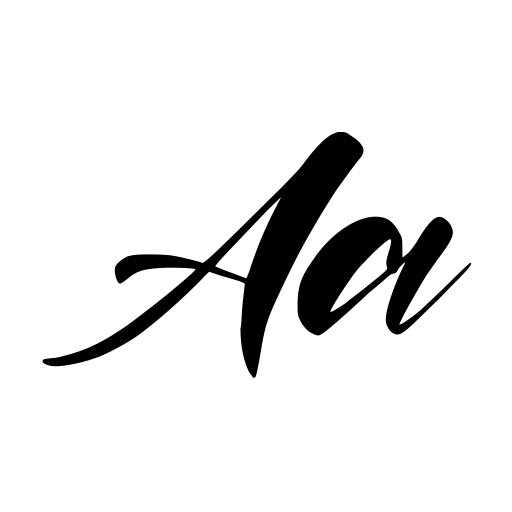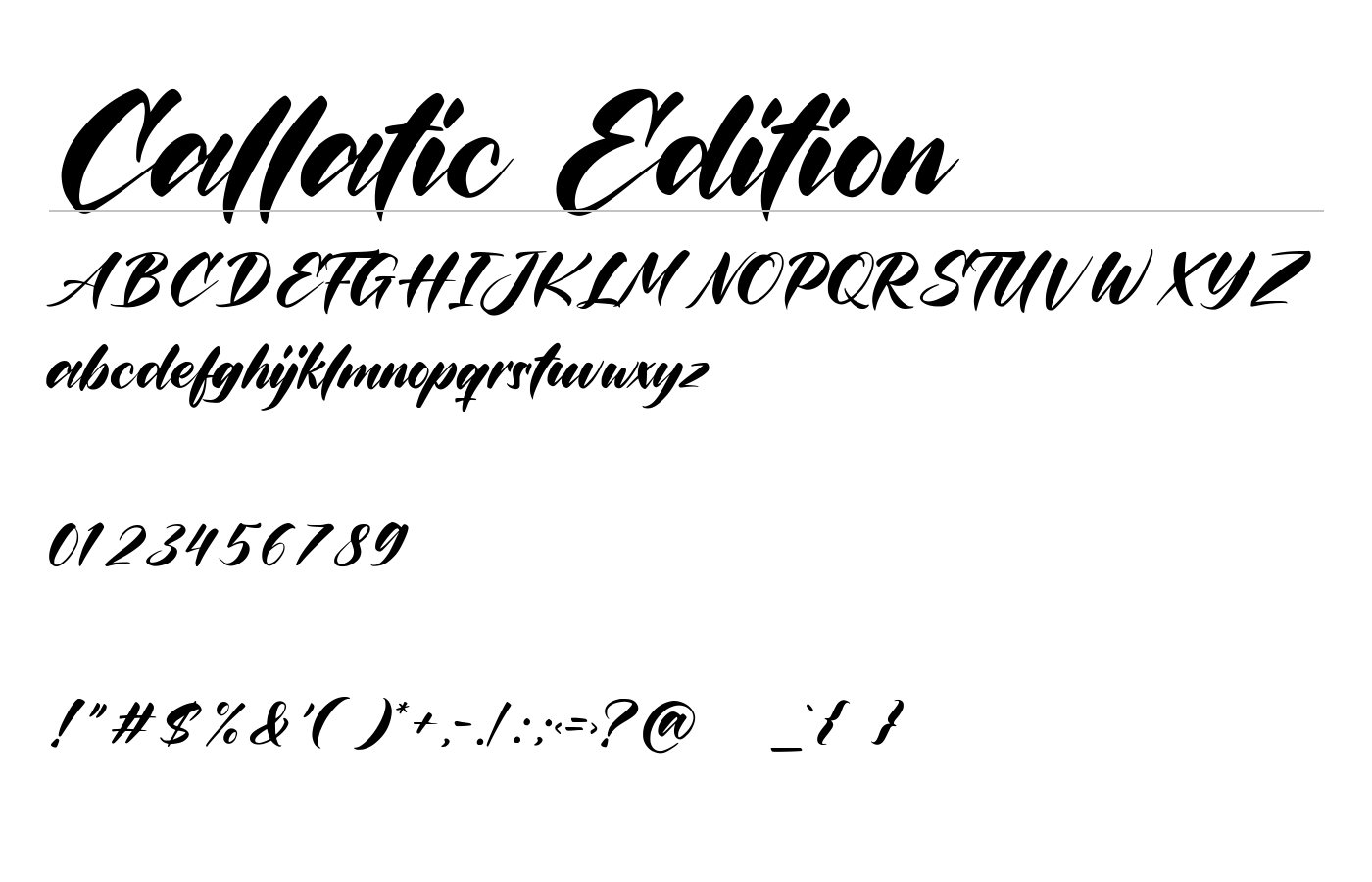
Callatic Edition is a bold, expressive script font with a lively, hand-painted feel. Its thick and dynamic strokes, combined with elegant swashes and fluid letterforms, give it a stylish and energetic personality perfect for adding a personal, artistic touch to branding, logos, invitations, and headlines. This font works best where a dramatic, creative flair is desired, making it ideal for fashion, lifestyle, and creative projects that seek a modern yet handcrafted look.
Callatic Edition Font
About Callatic Edition Font